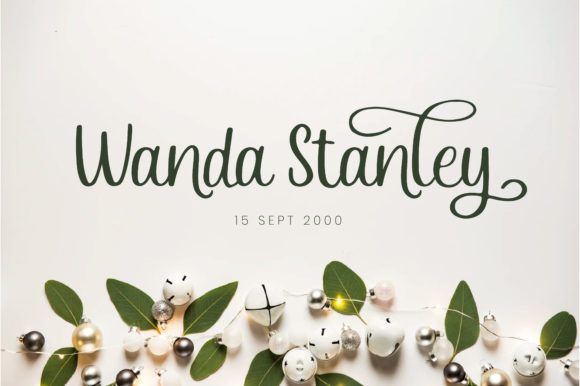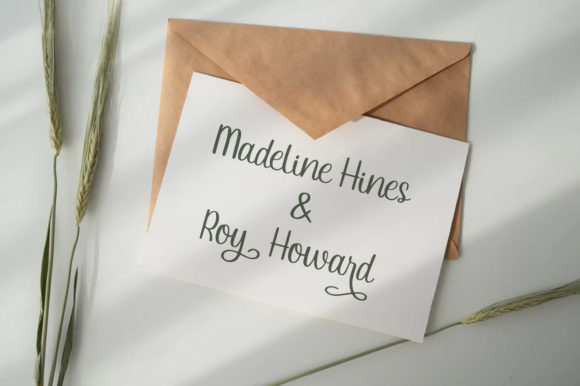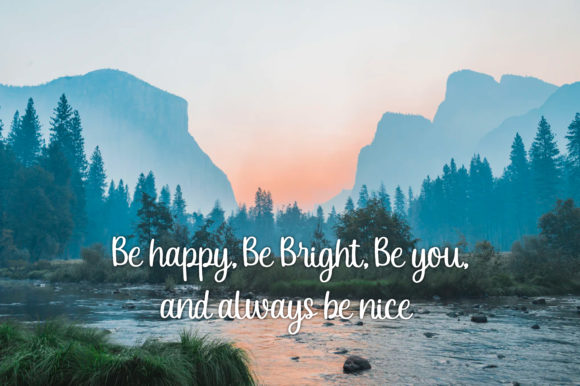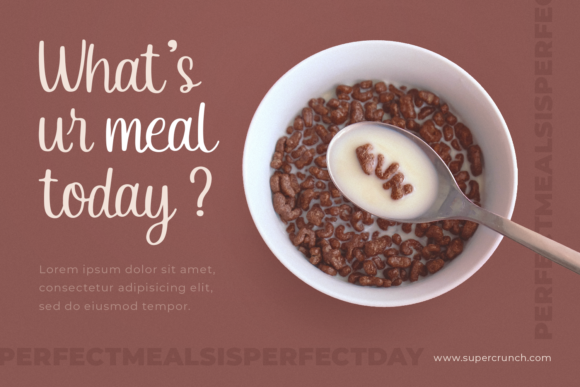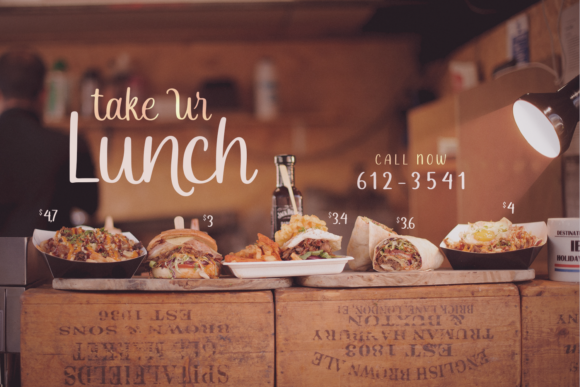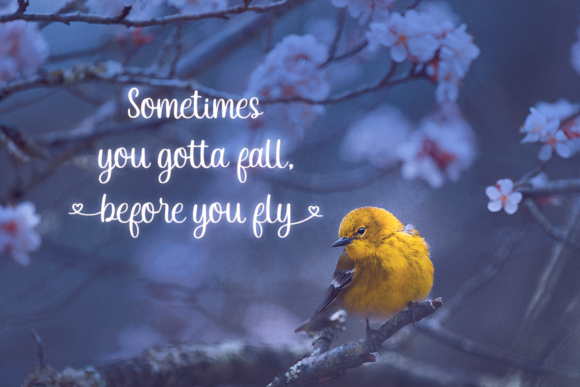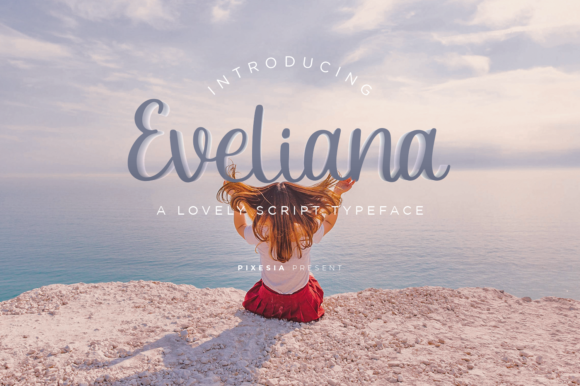
Eveliana Font: The Epitome of Elegance and Sophistication
In the world of typography, few fonts have managed to capture the essence of elegance and sophistication as beautifully as Eveliana. This delicate, elegant, and flowing handwritten font has taken the design community by storm, and for good reason. With its beautiful and well-balanced characters, Eveliana is a versatile font that can effortlessly match a wide pool of designs, making it a favorite among designers and crafters alike.
The Characteristics of Eveliana Font
Eveliana is more than just a font; it’s an experience. Its delicate strokes and elegant flow make it perfect for designs that require a touch of sophistication and class. The font’s characters are meticulously crafted to ensure balance and harmony, making it a joy to use in various design projects. Whether you’re working on a wedding invitation, a fashion brand logo, or a packaging design, Eveliana brings a level of refinement that’s hard to match.
PUA Encoding: Unlocking Full Potential
One of the standout features of Eveliana is its PUA (Private Use Area) encoding. This means that users can access all the glyphs and swashes with ease, offering unparalleled flexibility and creativity. PUA encoding allows designers to tap into a vast library of additional characters and decorative elements that can elevate their designs to new heights. With Eveliana, you can say goodbye to the limitations of standard fonts and hello to a world of creative possibilities.
The true beauty of Eveliana lies in its versatility. This font can seamlessly transition from one design style to another, making it an invaluable asset for designers who work on a wide range of projects. Here are just a few examples of how Eveliana can be used:
- Wedding and Event Design: Create stunning wedding invitations, save-the-date cards, and event posters that exude elegance and romance.
- Fashion and Beauty: Elevate your fashion brand’s logo, packaging, and marketing materials with a touch of sophistication and glamour.
- Stationery and Paper Goods: Design beautiful journals, notebooks, and greeting cards that stand out with Eveliana’s unique charm.
- Digital and Web Design: Use Eveliana to create visually appealing website headers, social media graphics, and digital ads that capture your audience’s attention.
Why Designers and Crafters Love Eveliana
Designers and crafters worldwide have fallen in love with Eveliana for several reasons:
- Ease of Use: Despite its intricate design, Eveliana is surprisingly easy to use, even for those who are new to font design.
- High-Quality Design: The font’s high-quality design ensures that it looks great in both print and digital formats.
- Support for Creative Projects: Eveliana’s extensive character set and swashes support a wide range of creative projects, making it a go-to font for innovative designs.
Eveliana is more than just a font; it’s a design experience. Its delicate elegance, flowing script, and PUA encoding make it a versatile and powerful tool for designers and crafters. Whether you’re looking to add a touch of sophistication to your project or simply want a font that can keep up with your creative demands, Eveliana is an excellent choice. With Eveliana, the possibilities are endless, and the results are sure to impress.